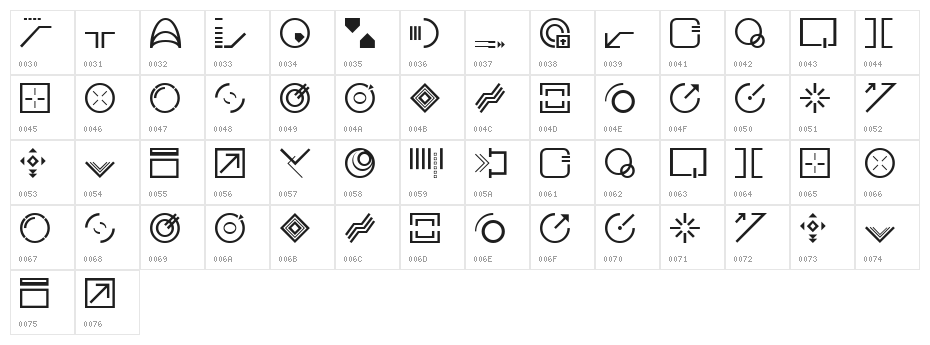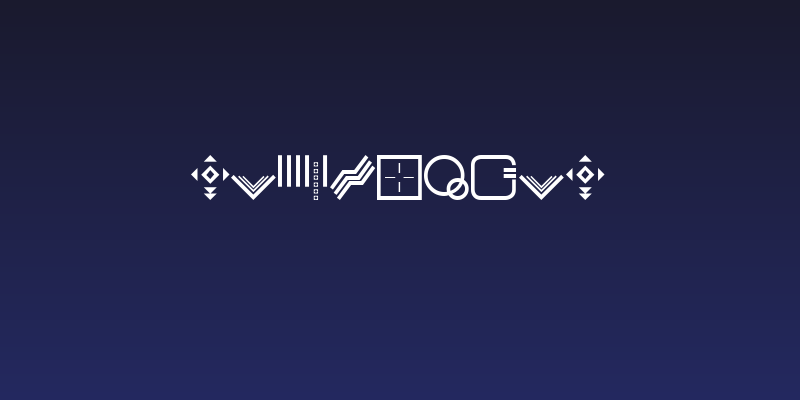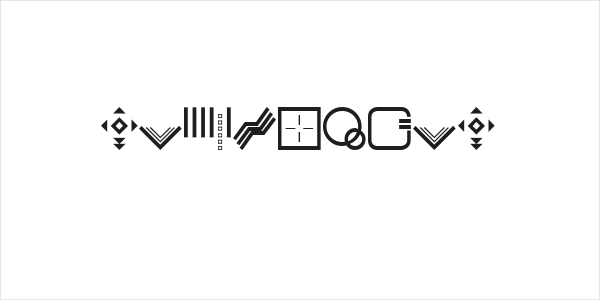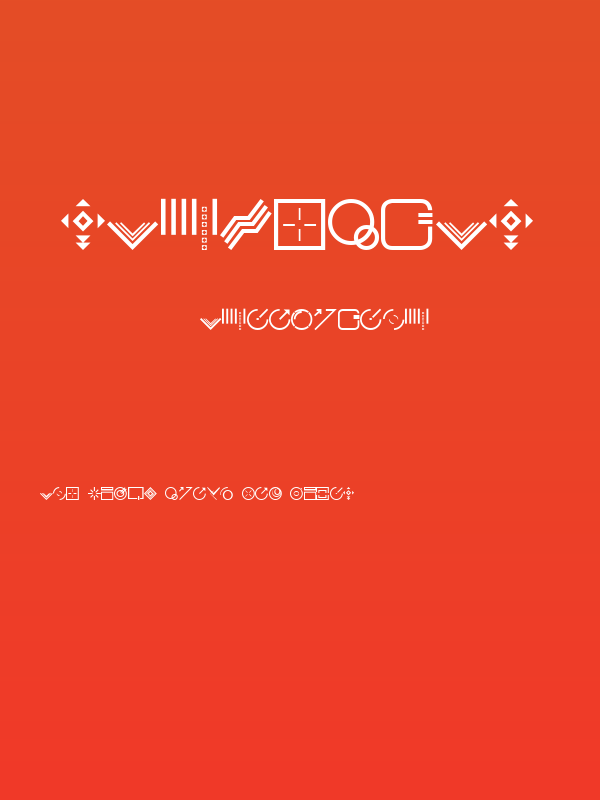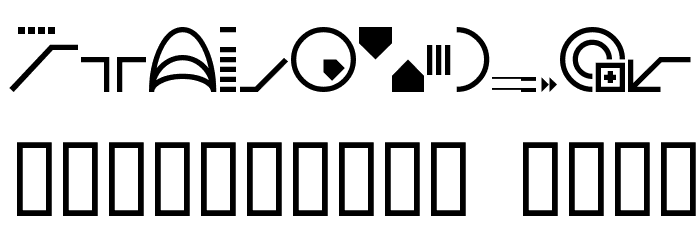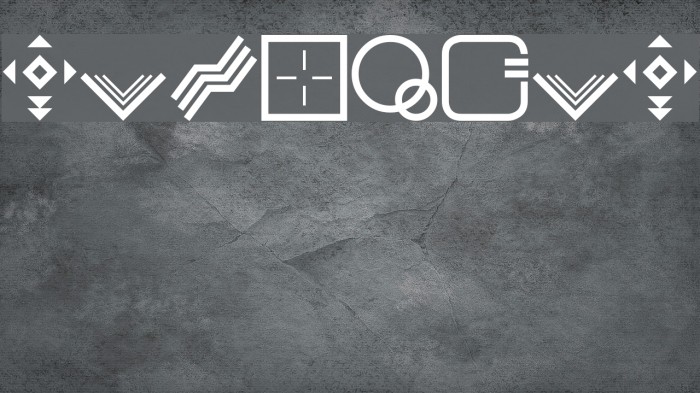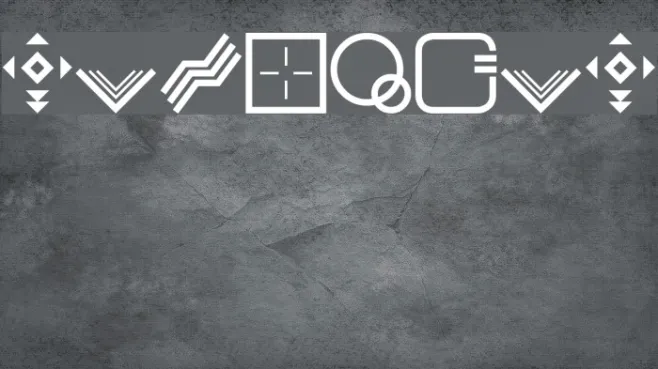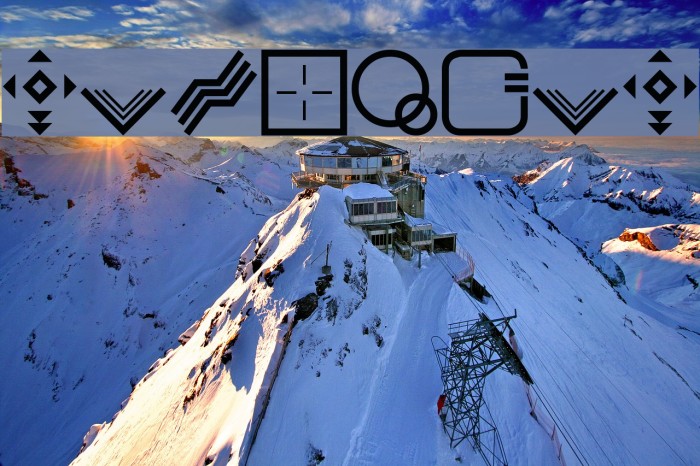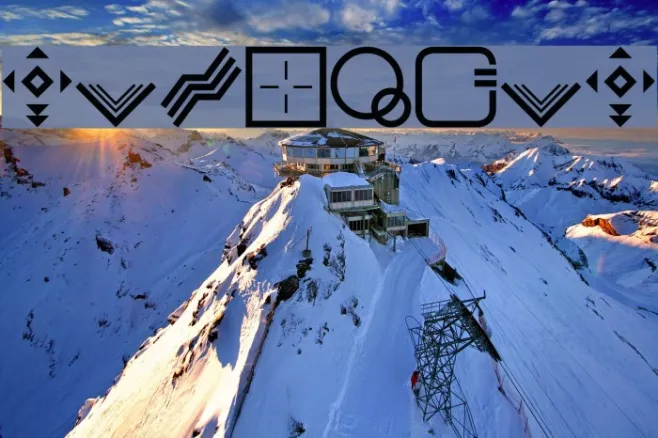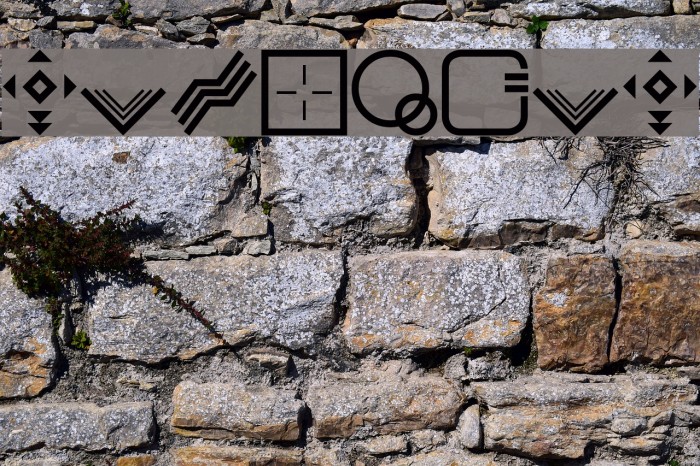
StyleBats Font
StyleBats Description
This font is a collection of unique and abstract symbols that resemble a variety of geometric shapes and patterns. Each character is distinct, featuring elements such as circles, arrows, squares, and lines, often combined in intricate ways. The style is highly decorative and artistic, making it suitable for creative projects that require a modern and unconventional look. The symbols are bold and clear, ensuring visibility and impact. This font is not intended for traditional text but rather for design elements, icons, or logos where a distinctive visual statement is needed.
| Use Case | Logos, Icons, Decorative elements |
| Proposed Projects | Ideal for logo design, branding, digital art projects, and creating unique icons or decorative elements. |